Let’s get groovy! Today we have prepared for you baseball fonts that require special attention, which can be purposefully used in sports branding projects, logos, badges, mascots and more other designs.
Most of these baseball fonts are a bold retro script related fonts and they are really awesome. All of them were created by professional designers and are of the best quality, regardless of whether it is a free or premium font. Feel free to choose your favorite from the list below, download and enjoy them.
Madison
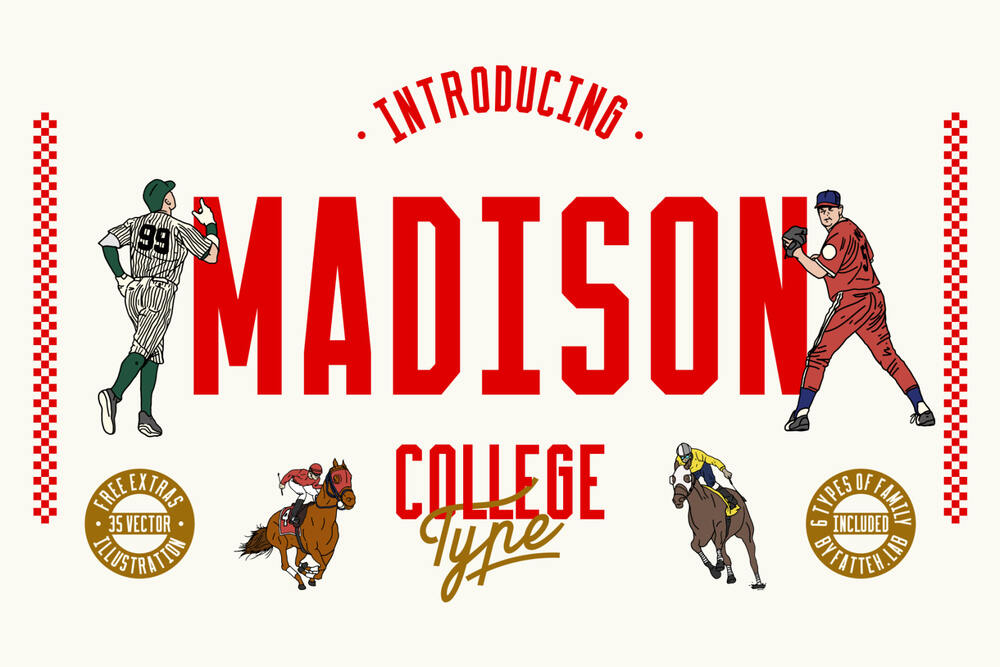
It is a bold, powerful and sporty font, perfect for sports logos, branding, posters, clothing designs with a bold and confident look.
Kathopis
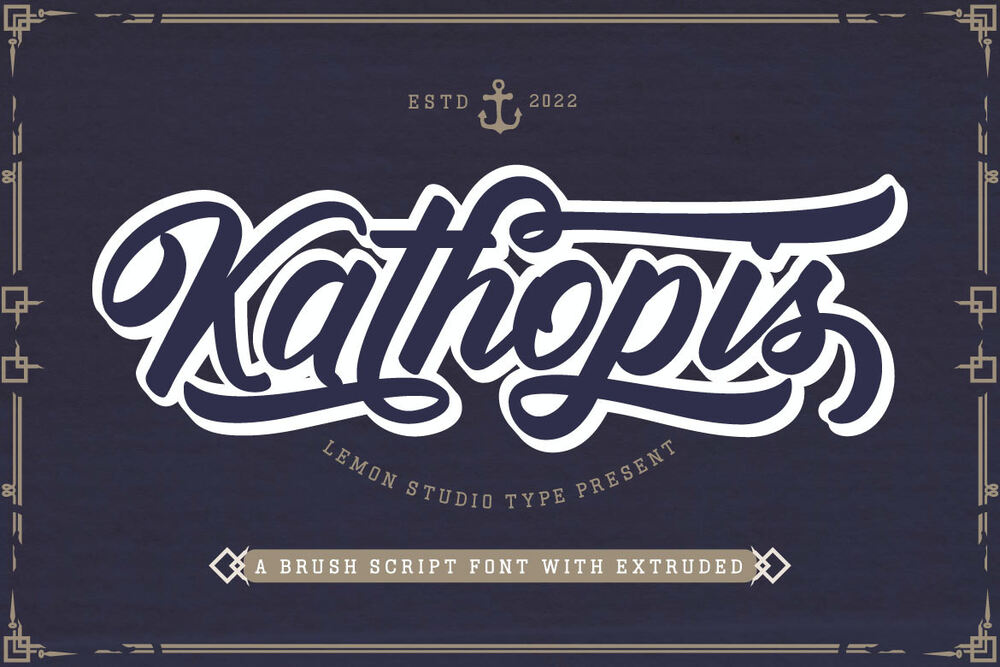
It is a powerful brush script with extruded font. Inspired by vintage style and combined with modern nuances. So good going for sports theme, logotypes, branding, promotional ads, quote designs, mockup designs, posters and etc.
Boston
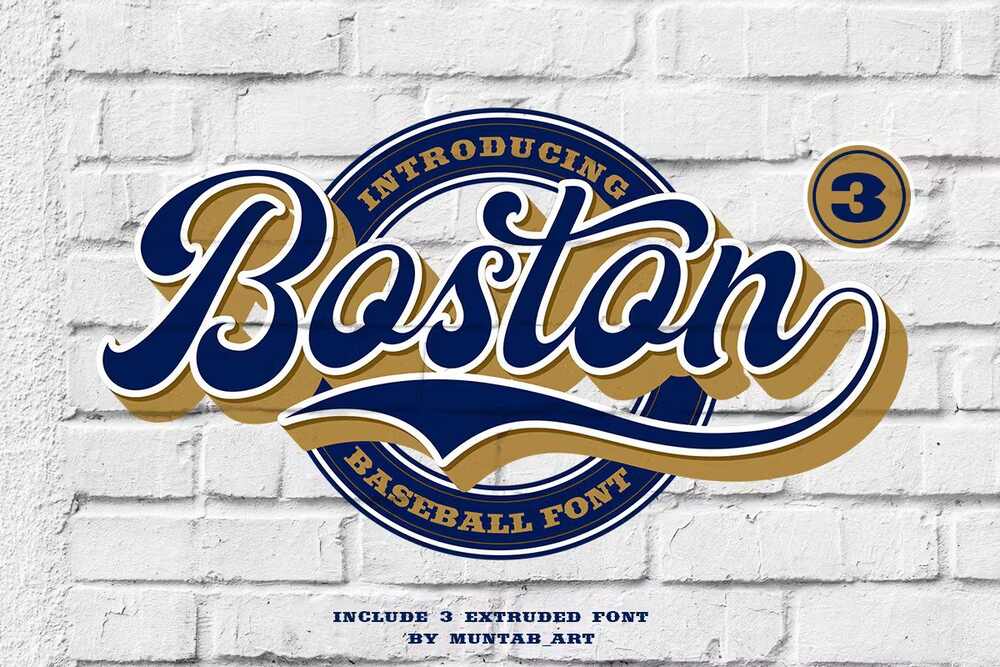
This font includes uppercase and lowercase letters, numerals, a large range of punctuation, alternate characters, stylishtic set, extrude font and ligatures. Best for sports theme design projects.
Groundout
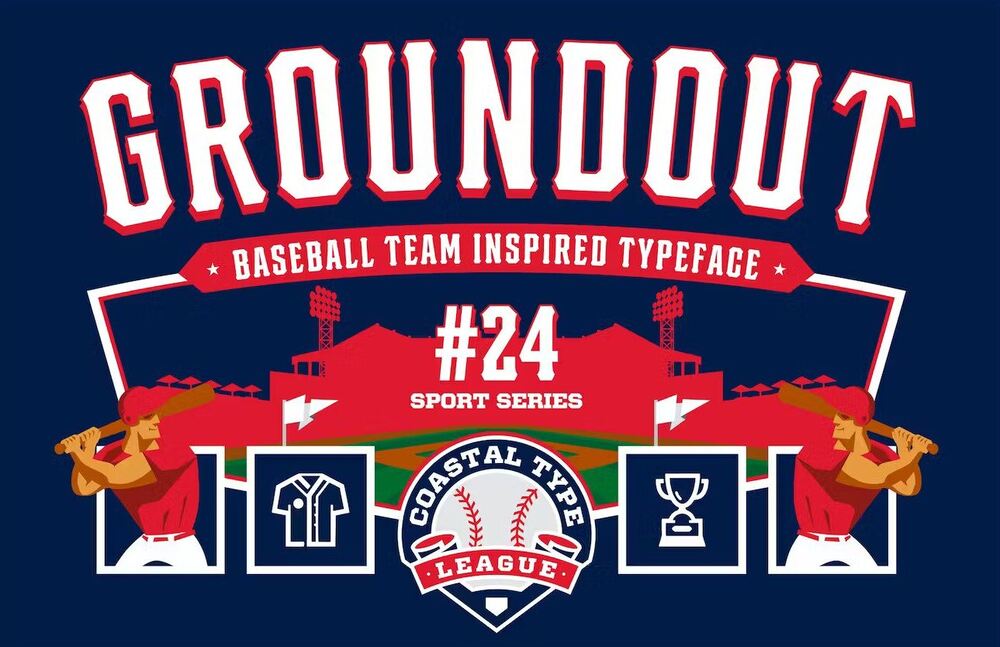
It is a strong and bold baseball font. Inspired by San Francisco Giants Logo as well as American heritage baseball team. These fonts are perfect for sports logos, branding, posters, apparel designs, labels and etc.
Thunder Mage
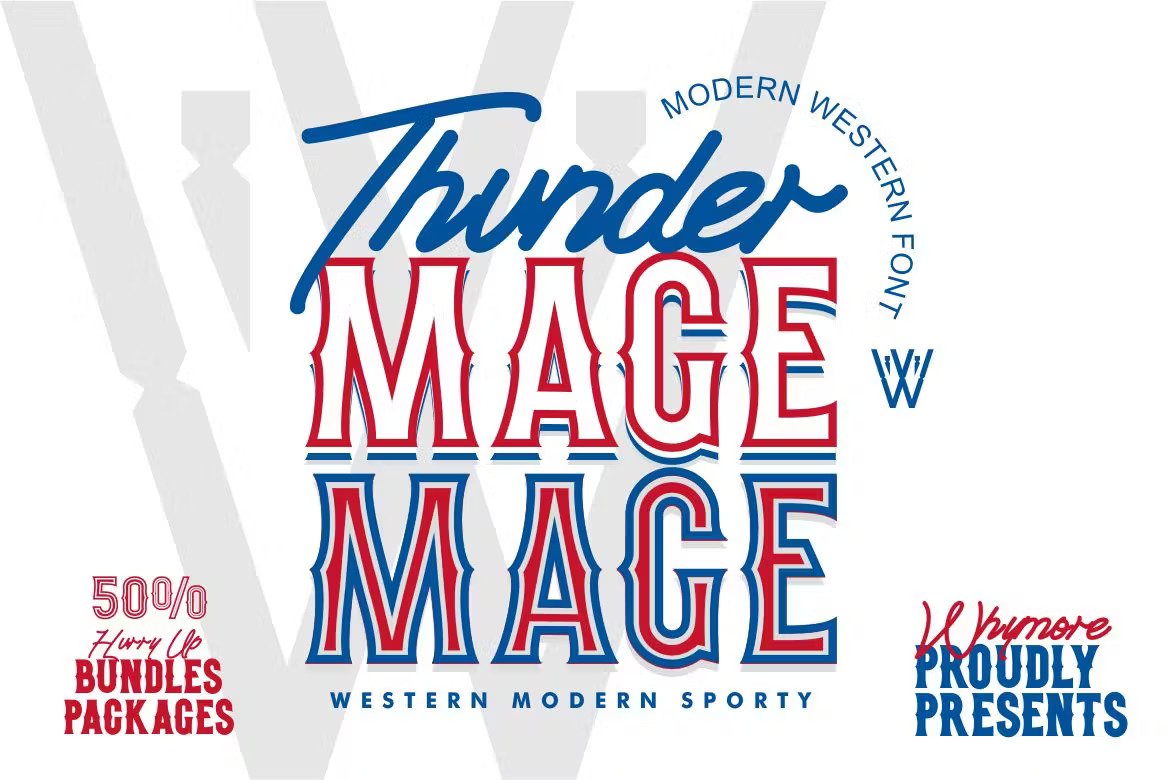
This font inspired by the baseball clubs and modern sports. It’s so good going for your designs such as logos, news headlines, magazines, labels and etc.
Radley
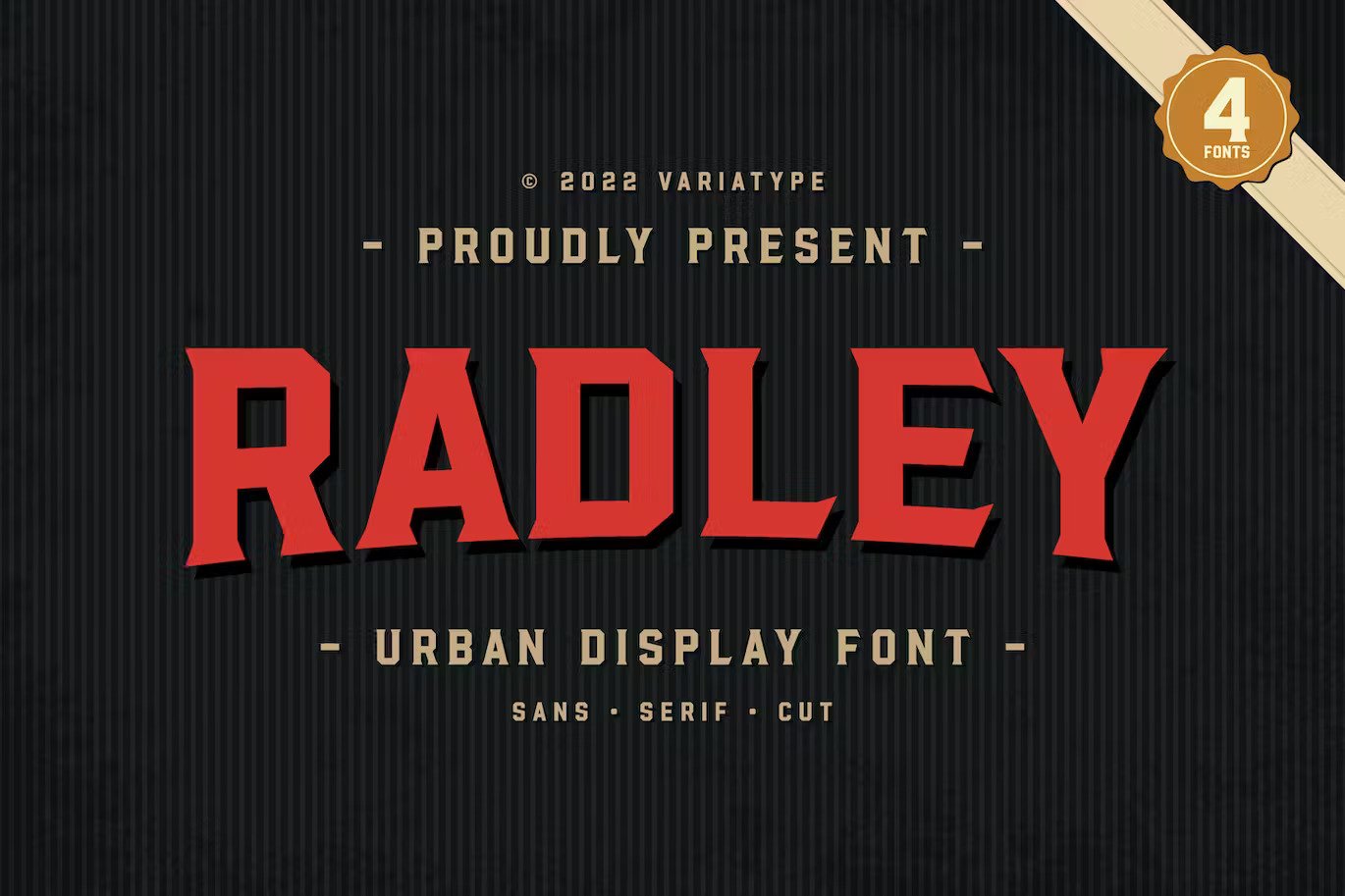
It is an urban all-caps font designed for sports branding and logotype. Including 4 fonts to make your project awesome.
Rooters Pro
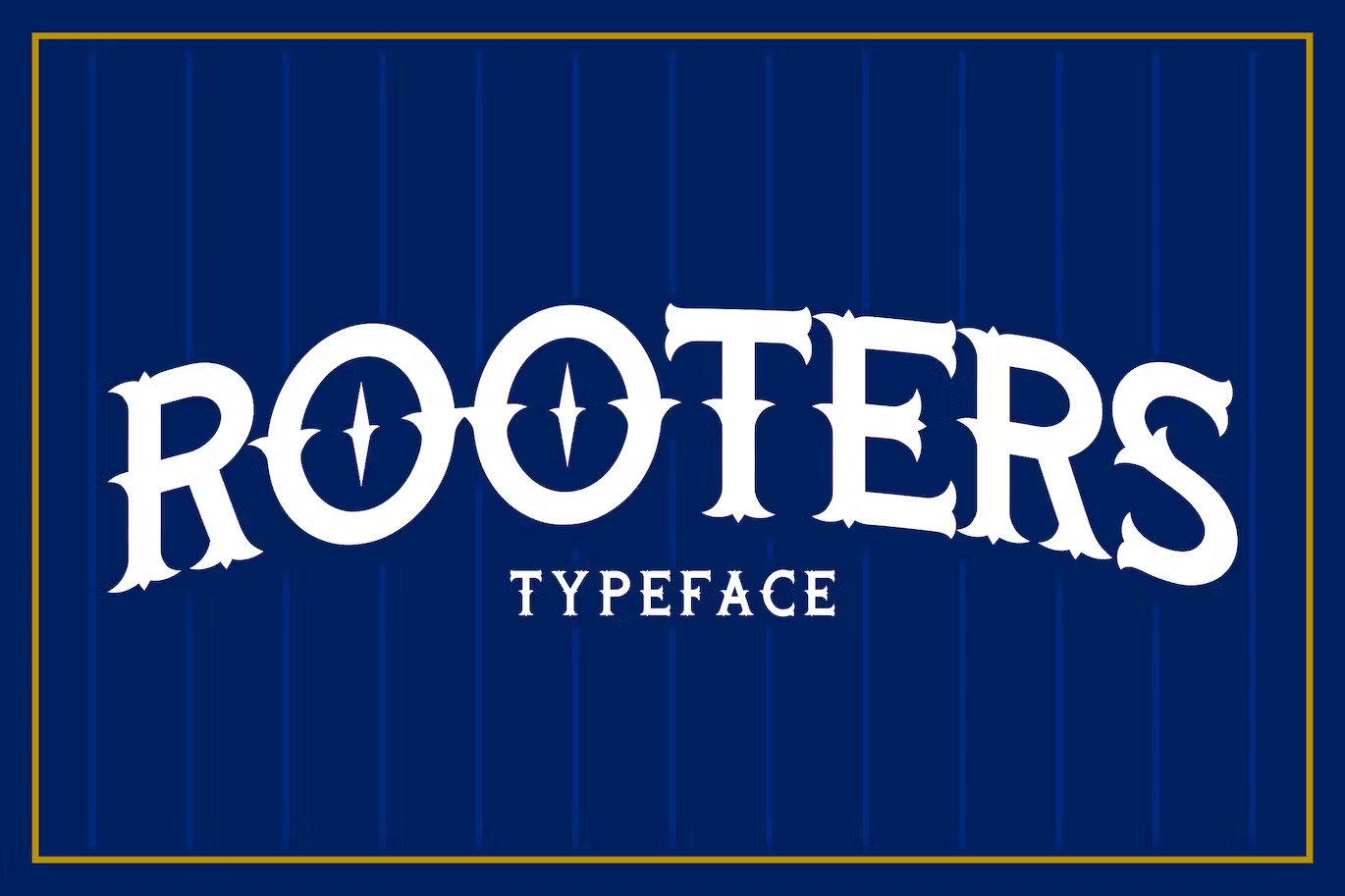
It is a mix of classic baseball style letters and a bit of tattoo lettering influence. Great addition for your vintage style font collections.
Yankees Classic
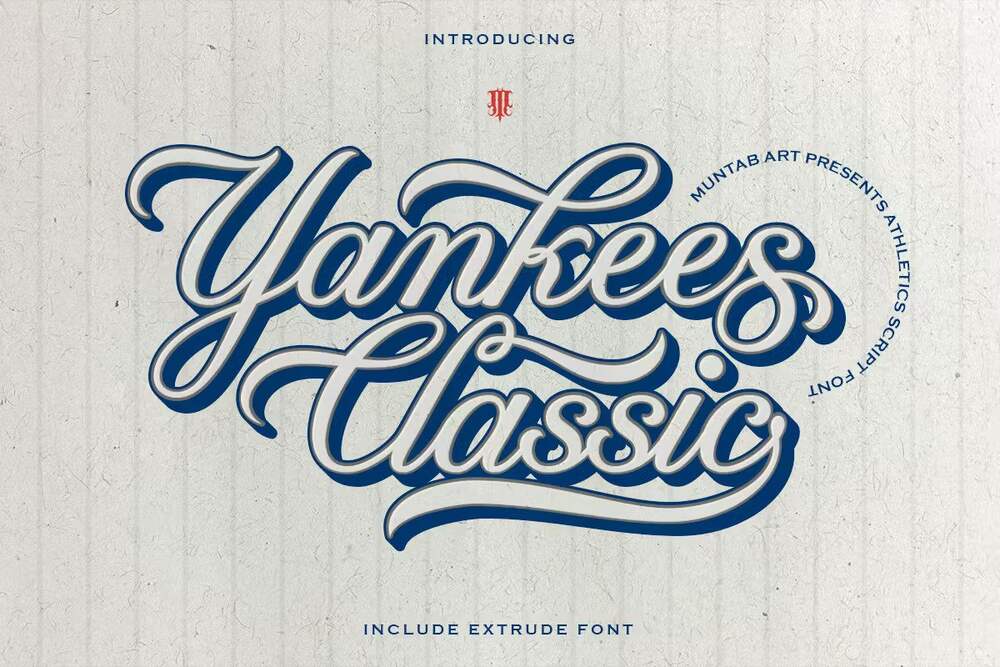
This font includes uppercase and lowercase letters, numerals, a large range of punctuation, alternate characters, stylishtic set, extrude font and ligatures. Best for sports branding, logos, labels and etc.
Changeball
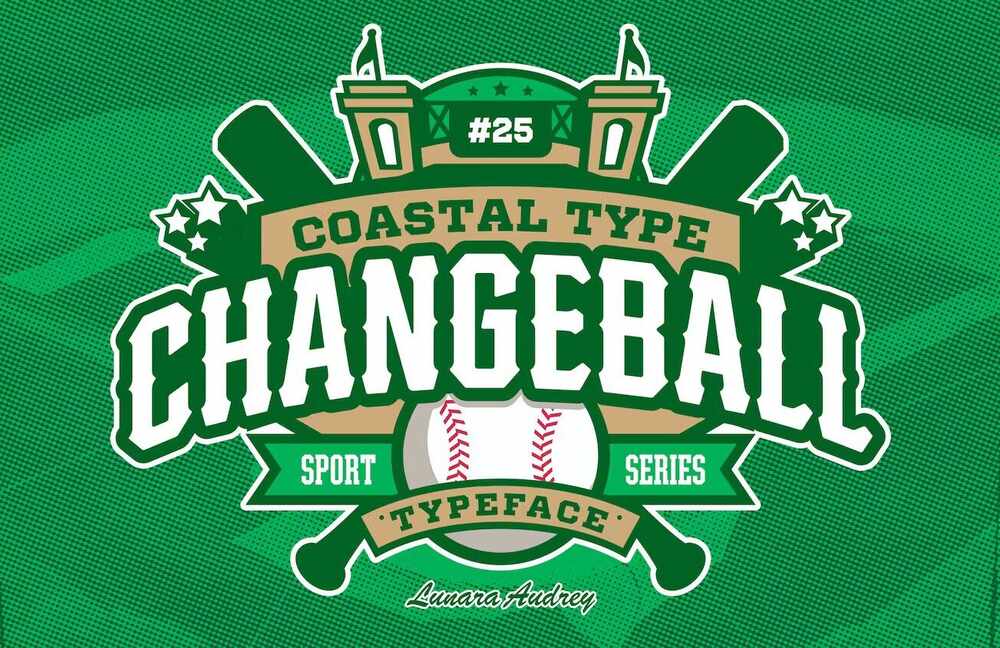
It is a smooth and rounded corners baseball serif font. Inspired by American heritage baseball team. These fonts are perfect for sports logos, branding, posters, apparel design, magazine headlines, labels and etc.
The Wackets
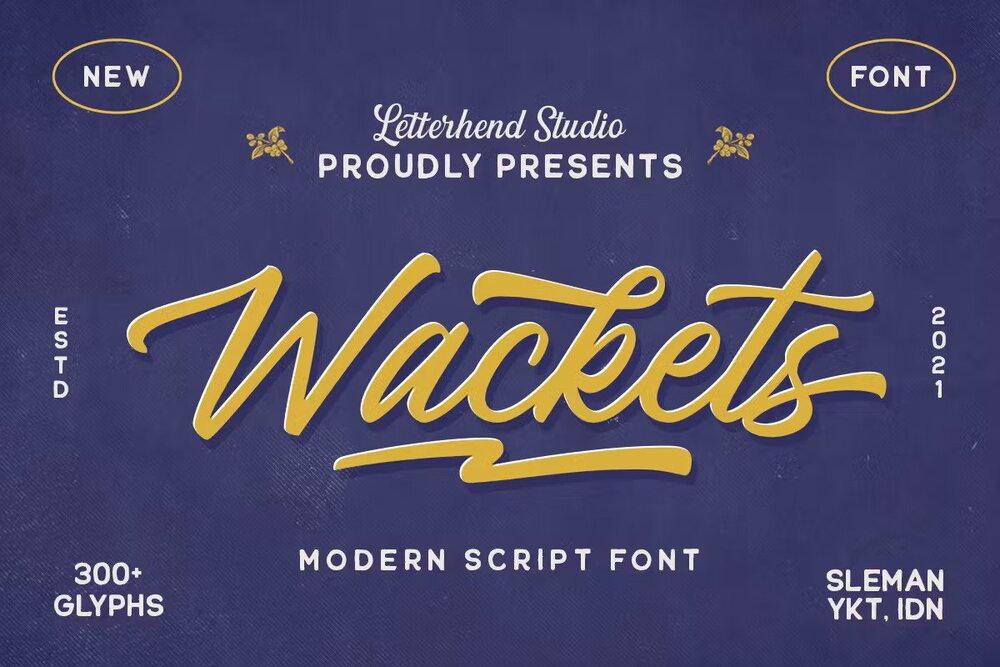
It is a standout script with a touch of vintage look and feel. This type of font perfectly made to be applied especially in logos, headlines, signages, labels and etc.
Free Krinkes Font
It is a retro script font with decorative capital letters. It’s free for personal use only. Best for sport related designs such as baseball logos.
Free Lastwinter Font
A free vintage rough script letter font so good going for your designs such as packaging, logos, labels, posters, shirt designs, quote of wisdom, hand-lettering and etc.
Billskates
A modern script font so perfectly made to be applied especially in logos, and the other various formal forms such as invitations, labels, magazines and etc.
Fenway
It is a very vintage script for all who love american sport style, and retro typography. Inspired by old school scripts on the vintage baseball jerseys. Best for logos, badges, labels, magazines, posters and etc.
Touchdown
A font that has all the excitement of the game in its letters. So good going for sport designs such as logos, badges, labels, posters and etc.
Pittsbrook Outline
A classic outlined typeface very good going for sport designs such as logos, branding, labels, badges, posters and etc.
BashBlock
It is a modern display typeface for your sporty designs such as logos, badges, labels, posters and etc.
Heavy Hitter Font
It is a font inspired by the classic Americn baseball imagery. Get ready to knock out your next design of the park.
Hudson NY
A display font that gives you strong and bold typography. Ideal for sports projects, logos, badges, labels, posters and etc.
Boardley
It is a script-style display font in two layers. Suitable for Logo, greeting cards, quotes, posters, branding and etc.
Camphound
It is a display slab serif font inspired by varsity, college and university sports as well as the military. Great for sports, sports teams, schools, display works, posters and etc.